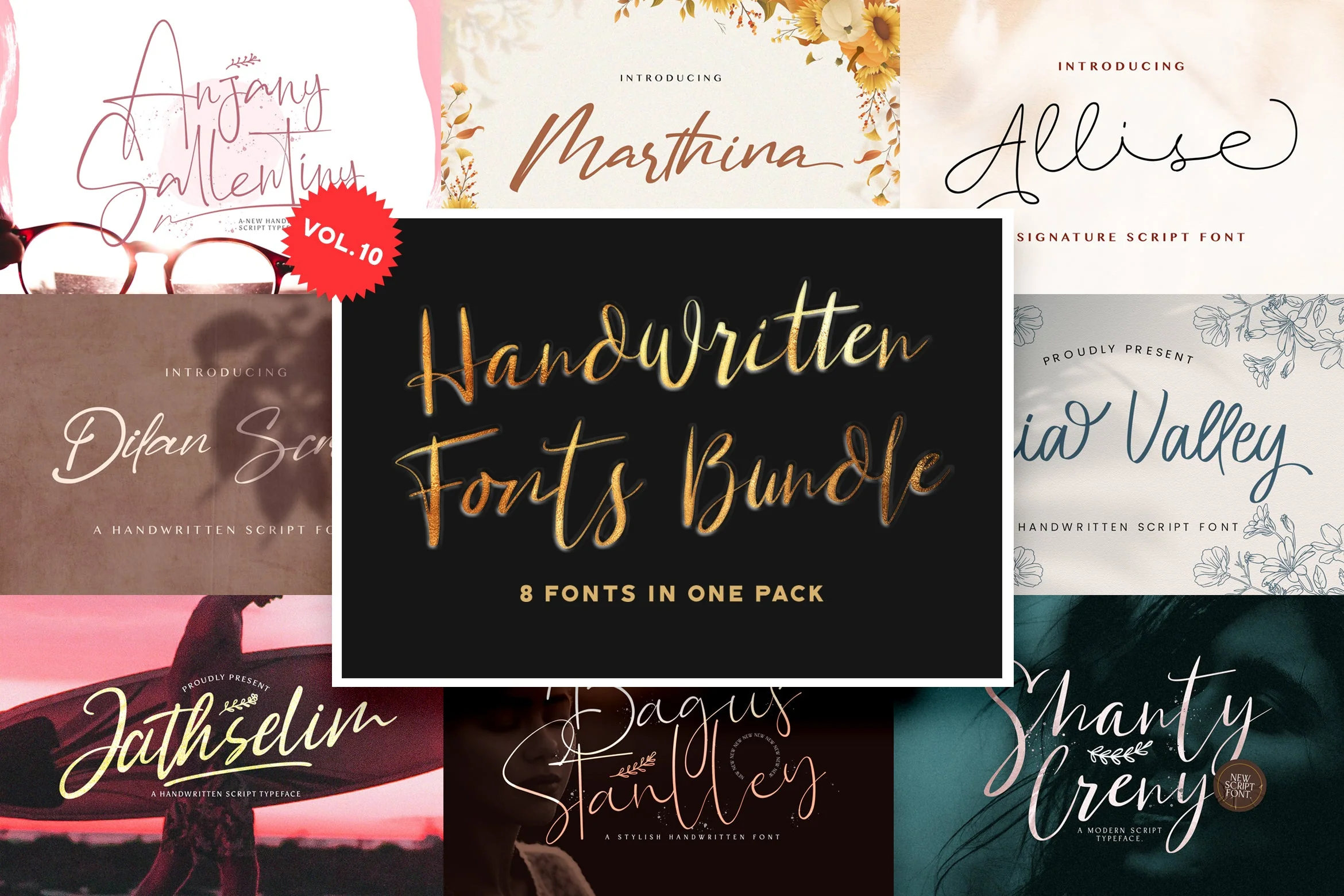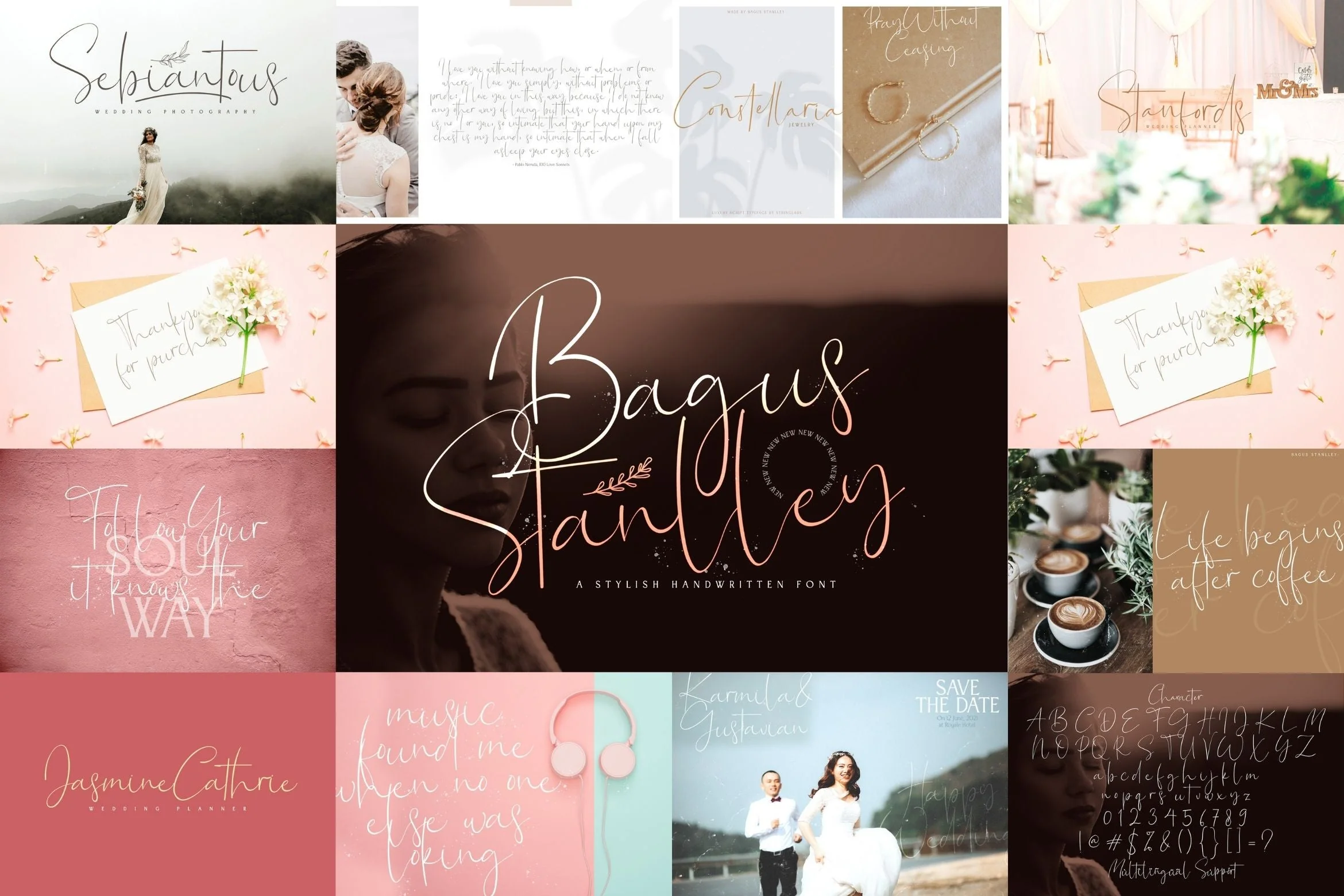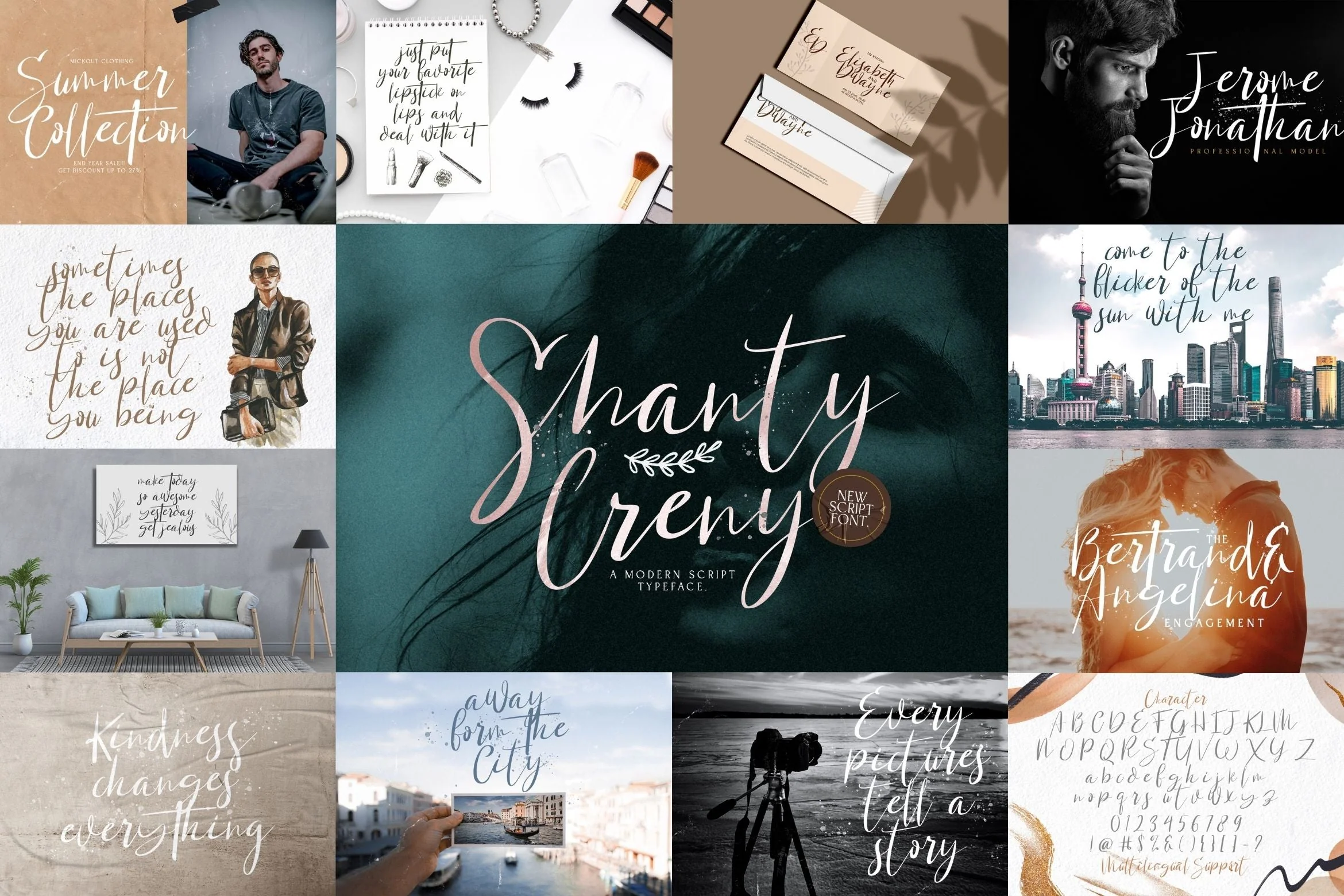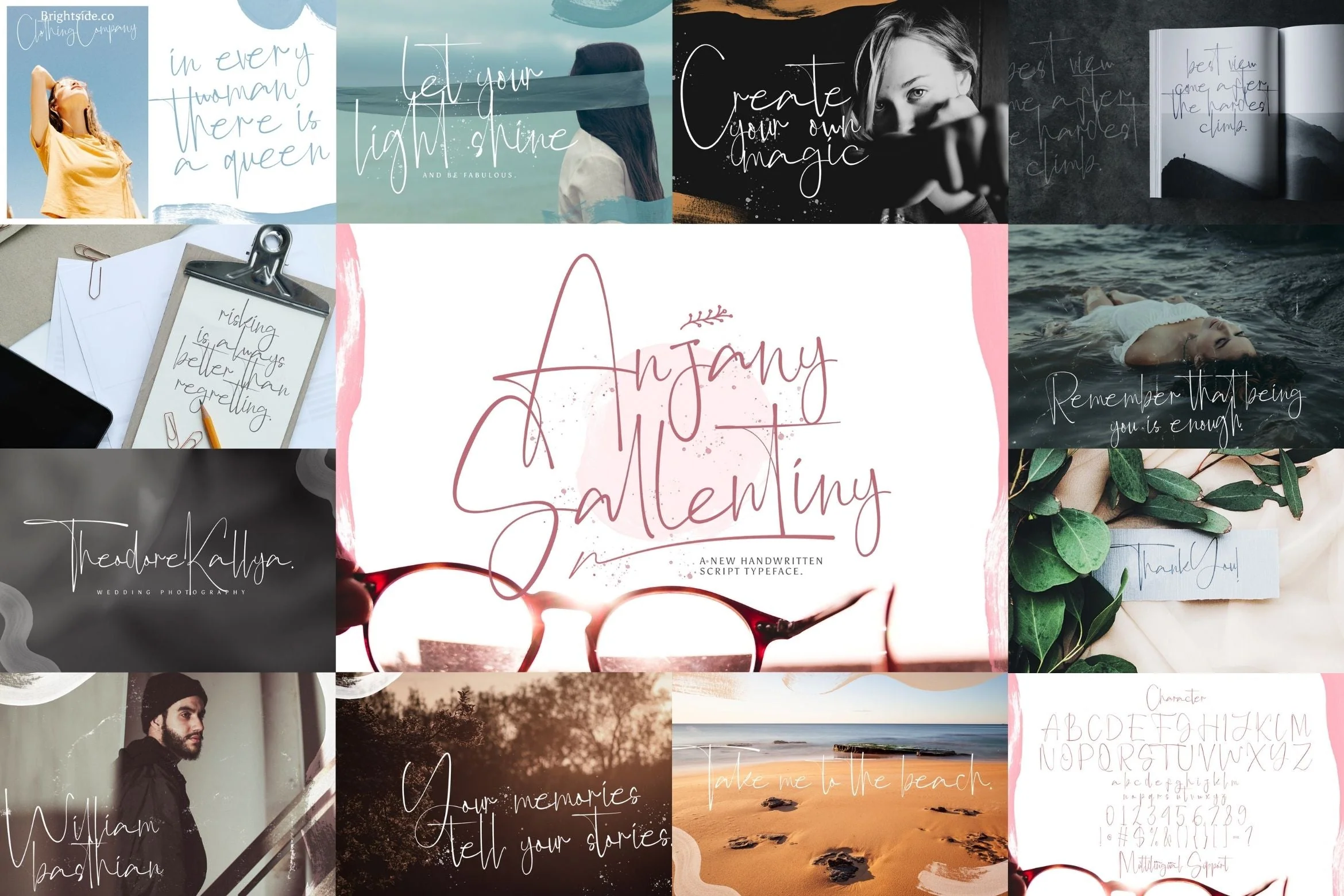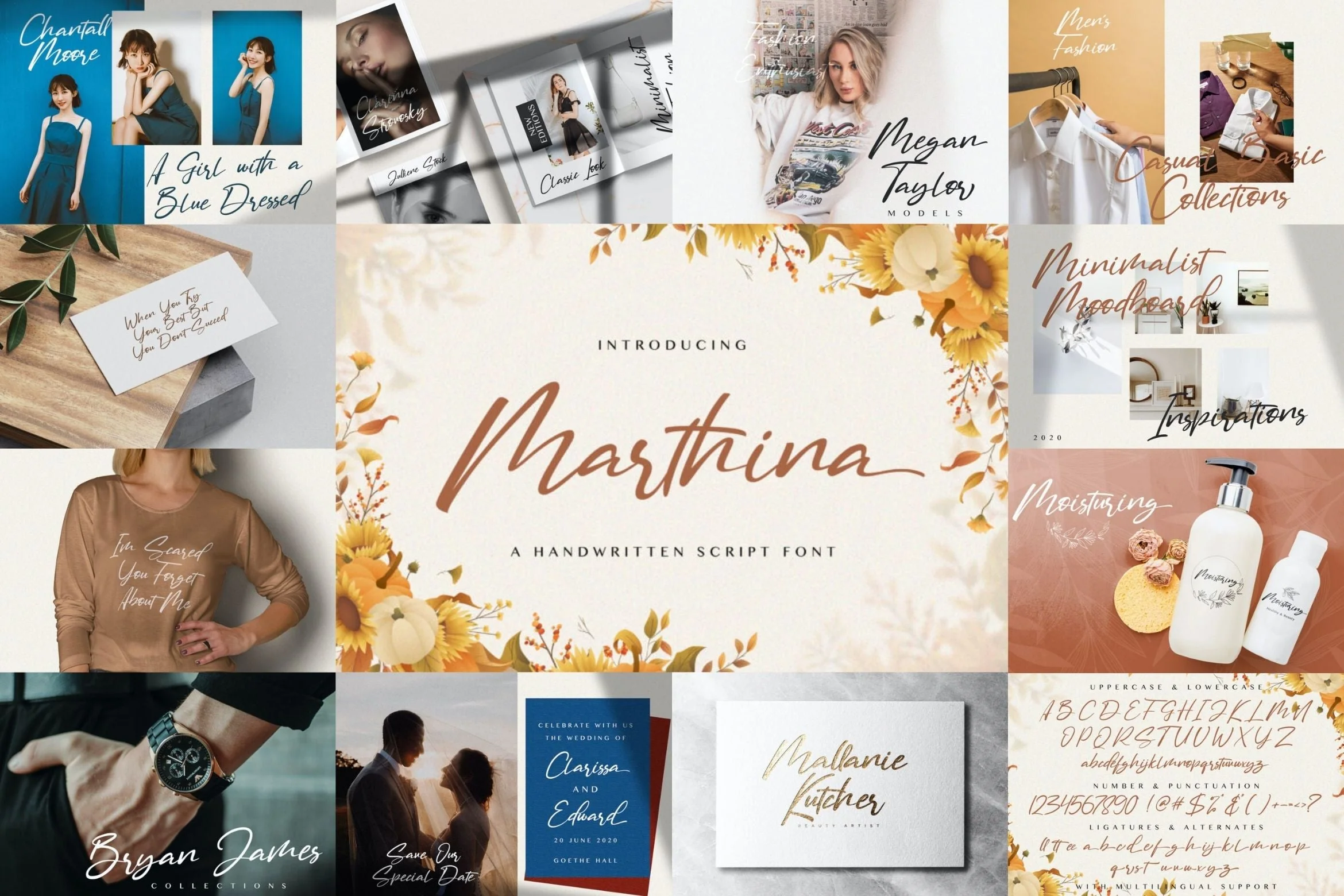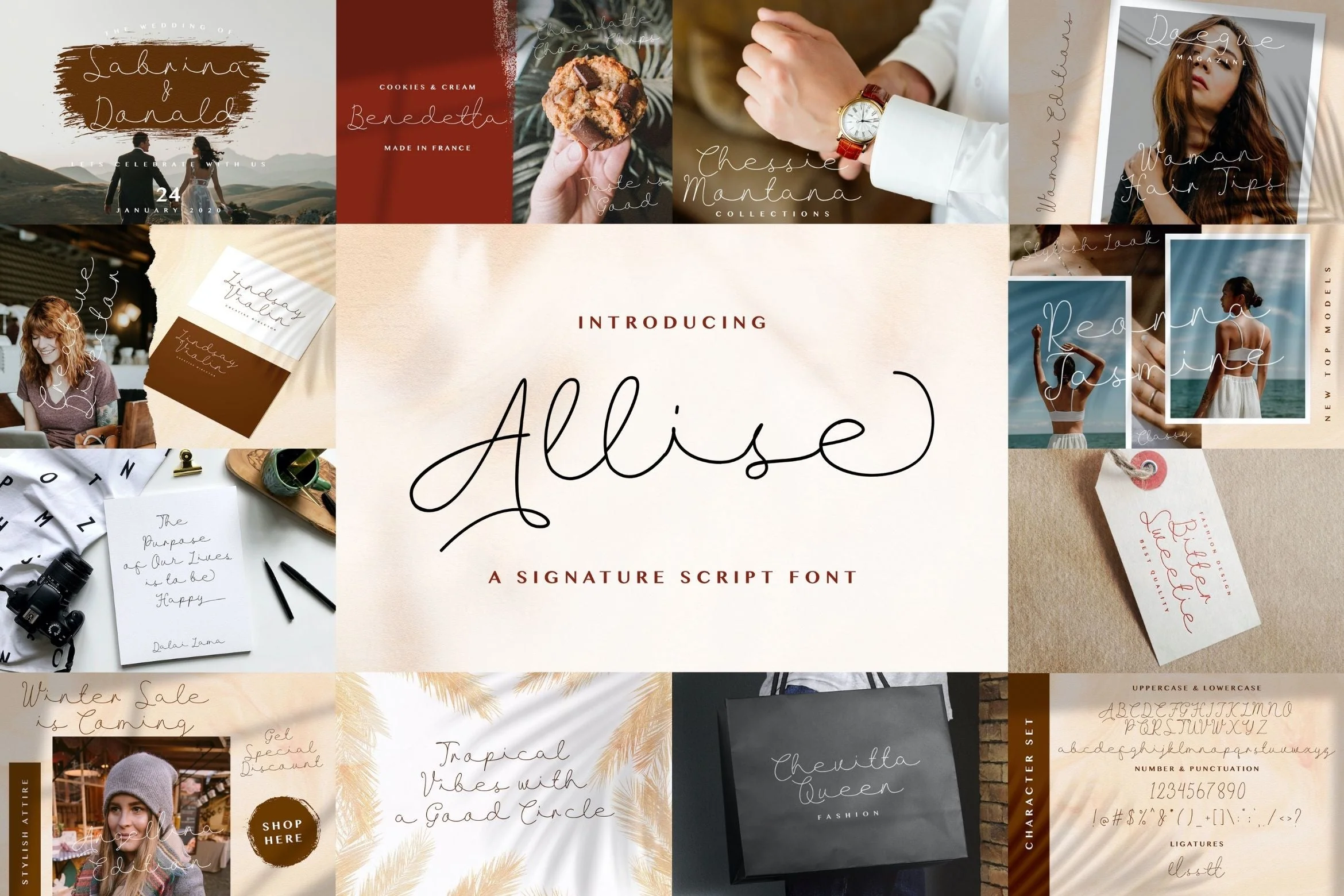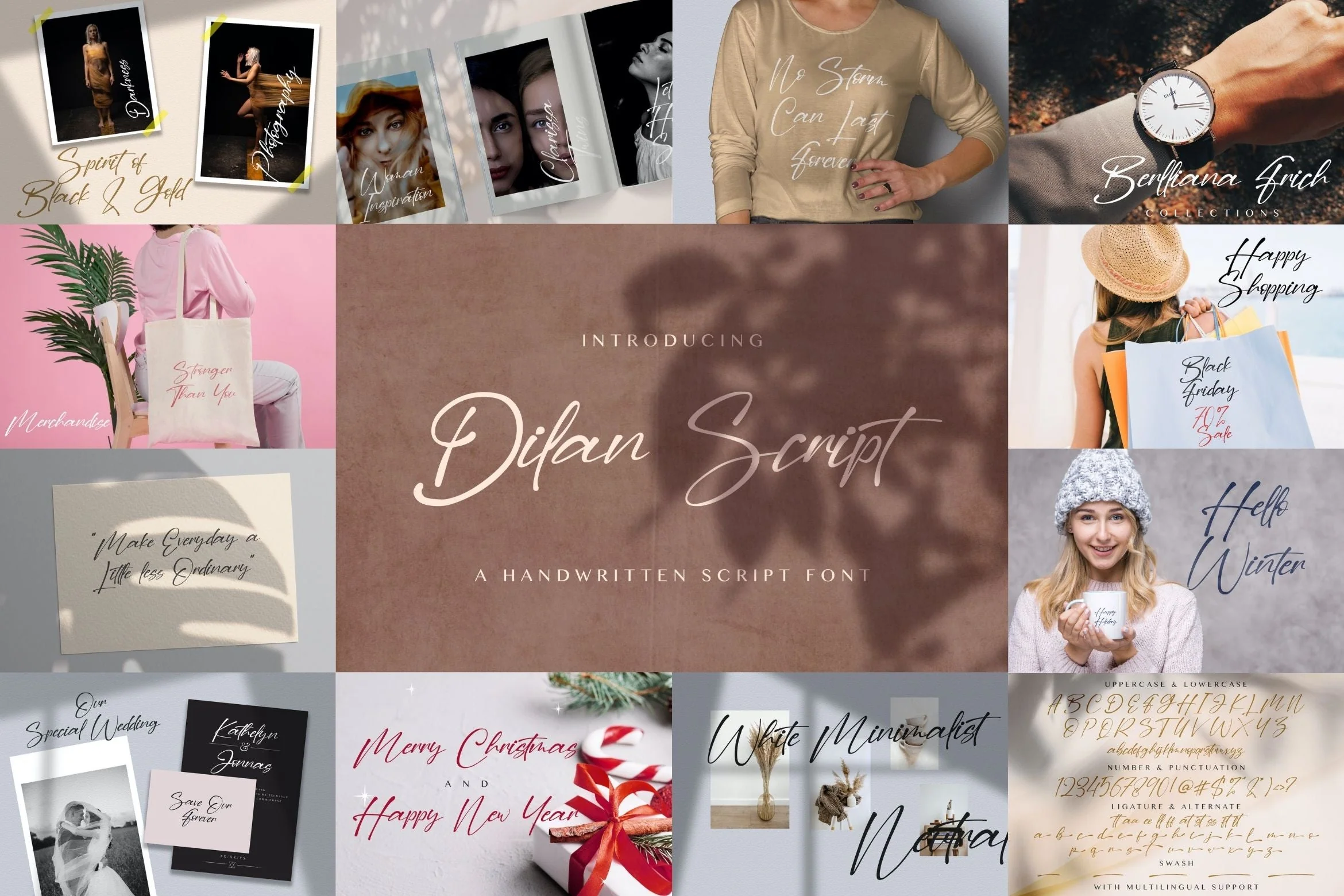
Handwritten Font Bundle Vol 10
Handwritten Font Bundle Vol 10 is a delicate, elegant and flowing handwritten font. This font bundle contains 8 high quality handwritting script font, it will look simply magical in a wide range of design projects, and also that will look particularly adept when used in logos, branding, packaging design, and much more. It has beautiful and well balanced characters and as a result, it matches a wide pool of designs. Add it to your most creative ideas and notice how it makes them come alive!
1. Dilan Script
2. Allise
3. Marthina
4. Jathselim
5. Anjany Sallentiny
6. Agia Valley
7. Shanti Creny
8. Bagus Stanlley
Handwritten Font Bundle Vol 10 is a delicate, elegant and flowing handwritten font. This font bundle contains 8 high quality handwritting script font, it will look simply magical in a wide range of design projects, and also that will look particularly adept when used in logos, branding, packaging design, and much more. It has beautiful and well balanced characters and as a result, it matches a wide pool of designs. Add it to your most creative ideas and notice how it makes them come alive!
1. Dilan Script
2. Allise
3. Marthina
4. Jathselim
5. Anjany Sallentiny
6. Agia Valley
7. Shanti Creny
8. Bagus Stanlley